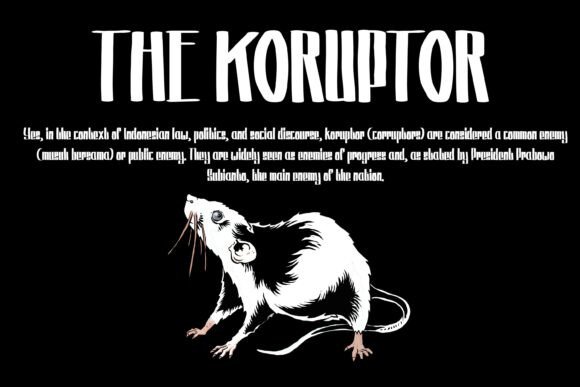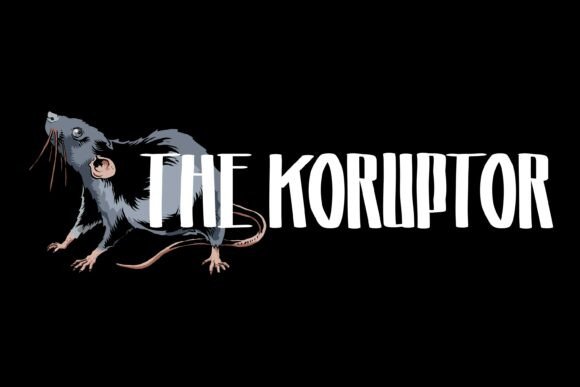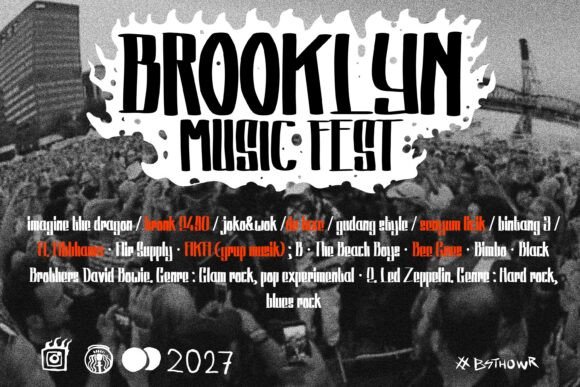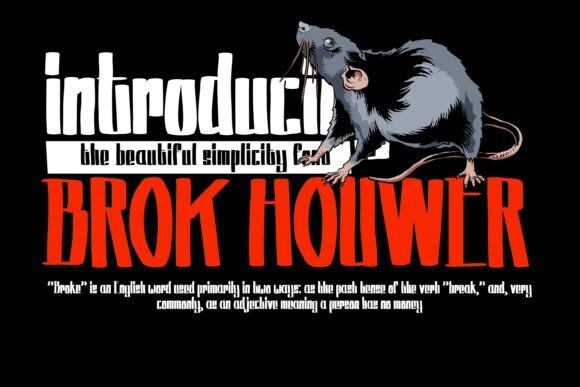
The Power of Typography: Unleashing Creativity with the Brok Houwer Font
Have you ever been brainstorming for a creative project and suddenly, a spark of inspiration hits you? That’s exactly what happened to many designers when they laid eyes on the Brok Houwer Font. Its bold and distinctive typeface is a game-changer for modern design projects, combining style and artistic character in a way that’s hard to ignore.
The Brok Houwer Font is a versatile and expressive tool, perfect for logos, posters, branding, headlines, and creative design projects. Its unique letterforms create a striking visual impact that grabs attention and leaves a lasting impression. As a designer, having access to a font like this can be a real game-changer, allowing you to bring your creative vision to life in a way that’s both stylish and effective.
Brok Houwer Font Key Features
- Font Family: Brok Houwer Font is a custom, hand-drawn font designed for creative and artistic purposes.
- Character Count: The font contains a wide range of characters, including uppercase and lowercase letters, numerals, punctuation marks, and special symbols.
- Size and Resolution: The font is designed to work at various sizes and resolutions, from small text to large headings, making it suitable for a wide range of applications.
- Unique Characteristics: The Brok Houwer Font features a distinctive, hand-drawn style with irregular lines and subtle imperfections, giving it a unique and artistic feel.
Brok Houwer Font Review
I recently had the chance to work with the Brok Houwer font, and I must say, it’s a unique and intriguing choice. ✨ One thing that stands out is its high level of expressiveness. The font’s quirky, hand-drawn style adds a touch of personality to any design project. I particularly enjoyed using it for titles and headings, where its bold, dynamic feel really shines.
Another strength of the Brok Houwer font is its versatility. It comes in a range of weights and styles, making it suitable for everything from elegant, high-end designs to more casual, playful projects. ✨ The font also features a wide range of international language support, making it a great choice for projects with a global reach.
While the Brok Houwer font is a great choice for many projects, it’s not without its limitations. ⚠️ One potential issue is its relatively limited legibility at smaller font sizes. This can make it challenging to use the font for large blocks of text, where readability is crucial.
Another limitation is the font’s relatively high contrast between light and dark areas, which can make it challenging to use in designs with complex backgrounds or gradients.
Overall, I think the Brok Houwer font is a great choice for designers looking to add a touch of personality to their projects. While it may not be suitable for every project, its unique style and high level of expressiveness make it a great option for those looking to stand out from the crowd.
- Highly expressive, hand-drawn style
- Range of weights and styles available
- Wide range of international language support
- May be challenging to use at smaller font sizes
- High contrast between light and dark areas may be challenging in complex backgrounds
Tips for Getting the Most Out of the Brok Houwer Font
For best results, use the Brok Houwer Font for headings and titles. Pair it with a clean and simple font for body text. Experiment with different font sizes and colors to create visual interest.
The Brok Houwer Font is ideal for creative and artistic projects, such as:
- Book covers and booklets
- Posters and flyers
Alternatives to Brok Houwer Font for Designers
Playfair Display is a high-end serif font that is perfect for creating elegant and luxurious designs. It features intricate details and elegant lines, making it ideal for use in headings and titles.
Comparison to Brok Houwer Font: While Brok Houwer Font has a more modern and edgy feel, Playfair Display is more classic and sophisticated. Playfair Display is better suited for formal designs, whereas Brok Houwer Font is more versatile and can be used in a variety of settings.